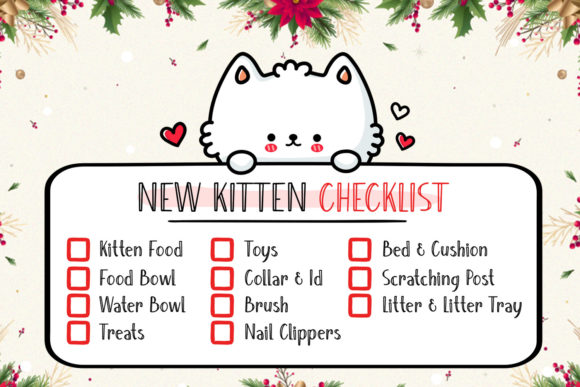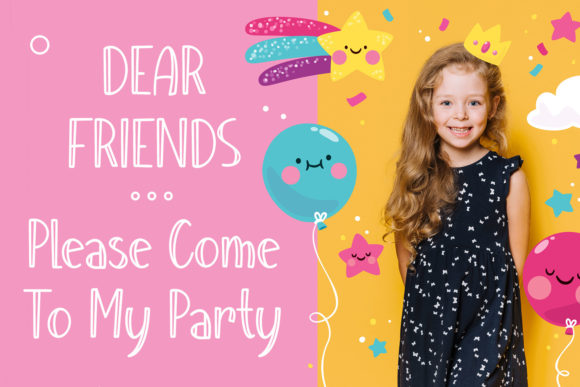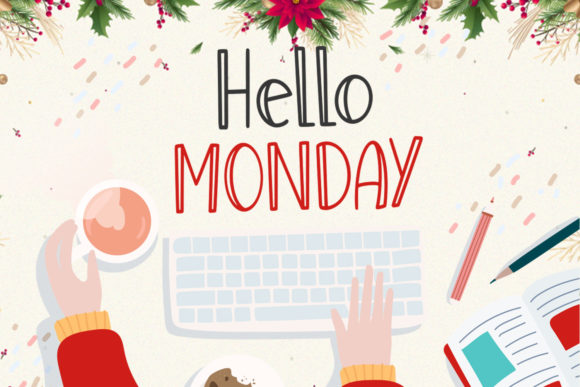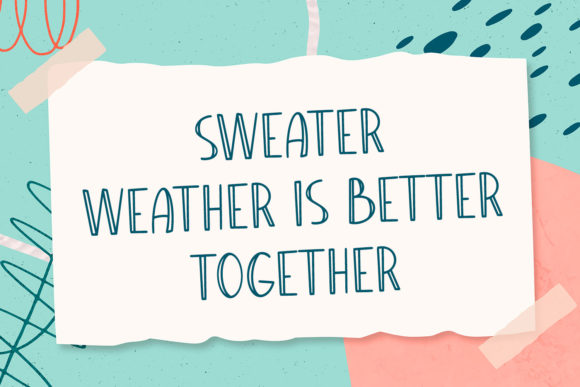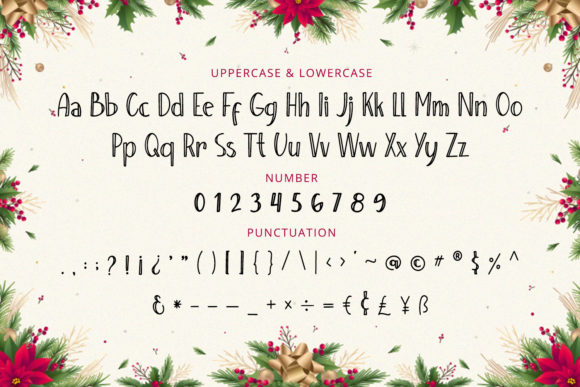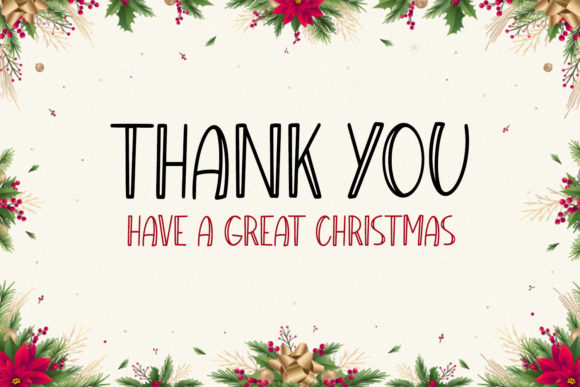
Introduction to Perfect Christmas Font
Perfect Christmas is a handwritten font with a cute and unique style.
It can be perfectly used for branding, logo design, lettering, logotype, and clothing You can also use it for magazines, packaging, posters, shopping bags, t-shirts, book covers, photography, special events, and many other design projects.
Perfect Christmas Font offers exceptional quality and versatility, making it a valuable addition to your design toolkit. Whether you’re creating for personal projects or commercial use, Perfect Christmas Font delivers professional results.